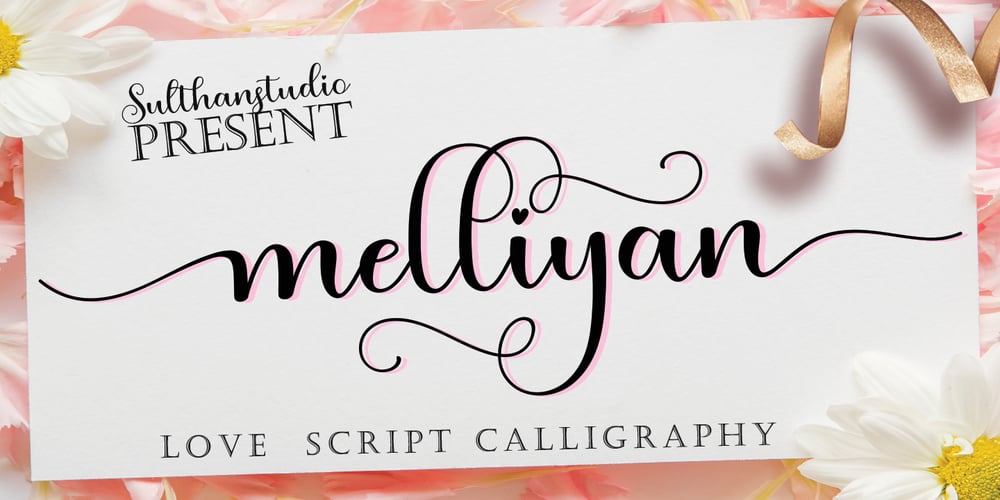
Melliyan
Melliyan font
Melliyan Font Family was designed by Nasrullah and published by Sulthan Studio. Melliyan contains 1 styles and family package options. Melliyan is a new, fresh, funny, interesting, and cute calligraphy font with heart that can be connected front and back. You will have an amazing idea when you make greeting cards, branding materials, business cards, quotes, posters, and more! Melliyan includes many alternative characters. It is coded with Unicode PUA, which allows full access to all additional characters without having special design software. Mac users can use Font Book. Windows users can use the Character Map to view and copy one of the additional characters to paste into your favorite text editor. For people who have opentype-capable software: Alternatives can be accessed by turning on the “Alternative Style” and “Ligature” buttons on the Photoshop Characters panel, or through any software with glyph panels, such as Adobe Illustrator, Photoshop CC, Inkscape.